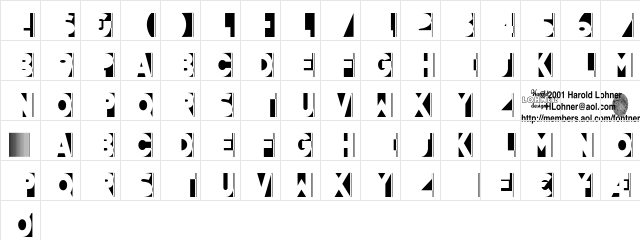
Good VibesBackbeat Regular Font Preview
Good VibesBackbeat Regular
Design Context for Good VibesBackbeat Typeface
Good VibesBackbeat is a composed and adaptable typeface that performs quietly and consistently across a wide range of design contexts.